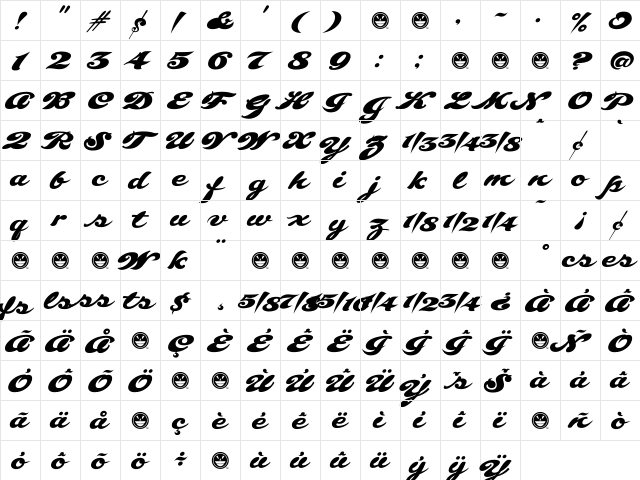
SCRIPT1 Bulletin Stub Normal
Design Context for SCRIPT1 Bulletin Stub Typeface
SCRIPT1 Bulletin Stub flows with the natural rhythm of handwritten lettering, making it ideal for designs that call for warmth and personal expression.
Font Pairing: Combine SCRIPT1 Bulletin Stub with a simple geometric sans for maximum contrast — the tension between flowing curves and clean structure is a classic typographic pairing.
Pro Tip: Pair SCRIPT1 Bulletin Stub with a clean sans-serif for supporting text. The contrast between fluid script and geometric structure creates an elegant typographic hierarchy.